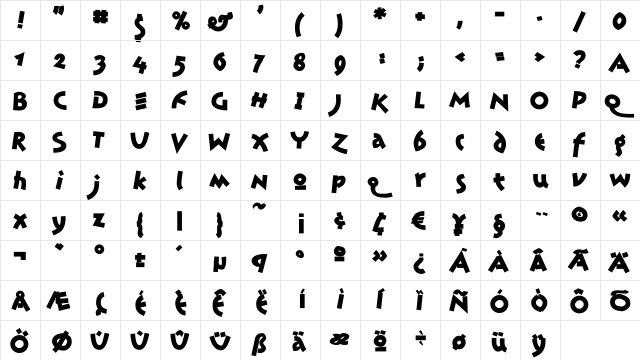
Jonas Bold
Design Context for Jonas Typeface
Jonas is a composed and adaptable typeface that performs quietly and consistently across a wide range of design contexts. The heavy weight commands attention and anchors typographic hierarchies.